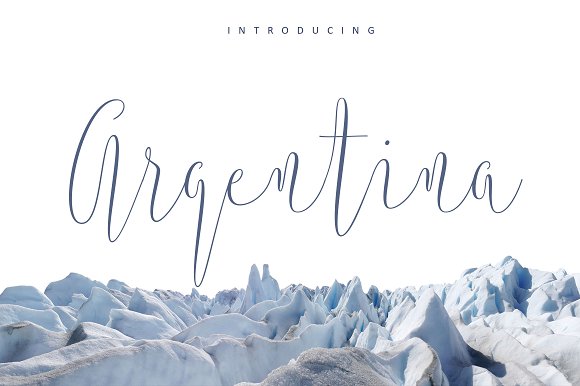
Introduce a font. Introduce Argentina Script - a charismatic and enchanting font family, flowing gracefully along the lines of creativity. Embark on a captivating journey of words, wrapped in the allure of this extraordinary font. From the realm of imagination, this script font springs to life, inviting you to express your emotions with an artistic flair, perfect for numerous occasions and projects.
Argentina Script: A Font for Every Occasion, A Palette of Emotions
Every letter, every curve of Argentina Script exudes elegance, charm, and a touch of nostalgia. It's your perfect companion for wedding invitations, carrying the promise of love and commitment in its delicate strokes. Let your words take flight, guided by a font that adds depth and beauty to every syllable. Its versatility knows no bounds. From personal branding to marketing campaigns, from posters to social media posts, Argentina Script is your versatile choice, adaptable to any message you wish to convey.
Engage Your Audience with a Font That Speaks
Argentina Script is a visual symphony, an orchestra of letters that dance upon the screen, captivating your audience with its grace and poise. Its carefully crafted ligatures create a harmonious flow, guiding the eyes through your text with seamless transitions. Experience the joy of writing with Argentina Script, as words flow from your fingertips, imbued with the power to evoke emotions and leave a lasting impression.
Unleash Your Creativity: Argentina Script as Your Muse
As an artist, your imagination knows no bounds. With Argentina Script, you have the power to transform ideas into visual masterpieces. The flowing, expressive nature of this script brings depth to your work, allowing you to create logos, posters, and social media posts that stand out from the crowd. Argentina Script is your brush, your chisel, your pen, transforming digital spaces into canvases of creativity.